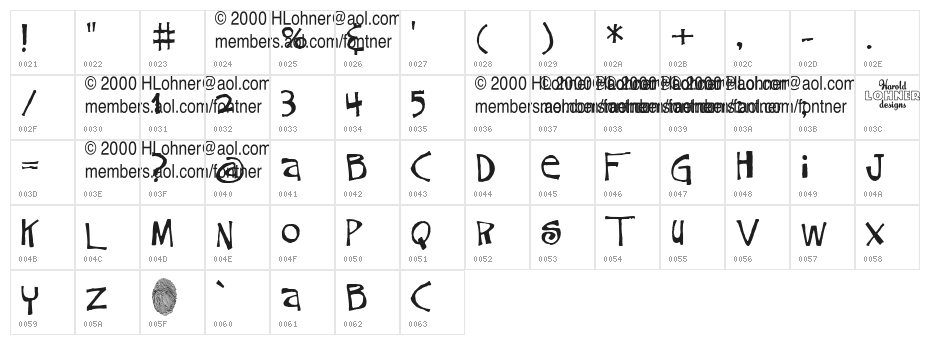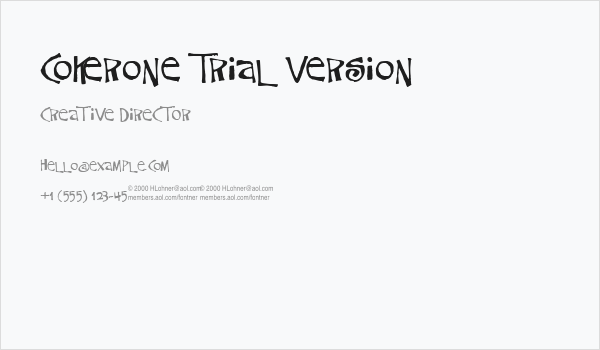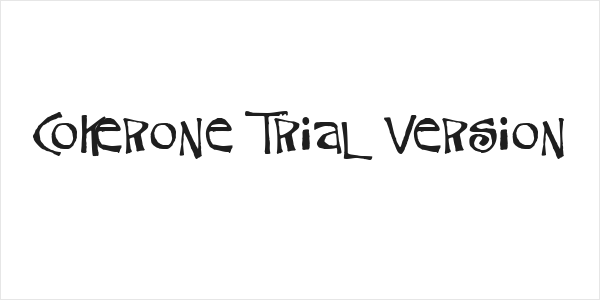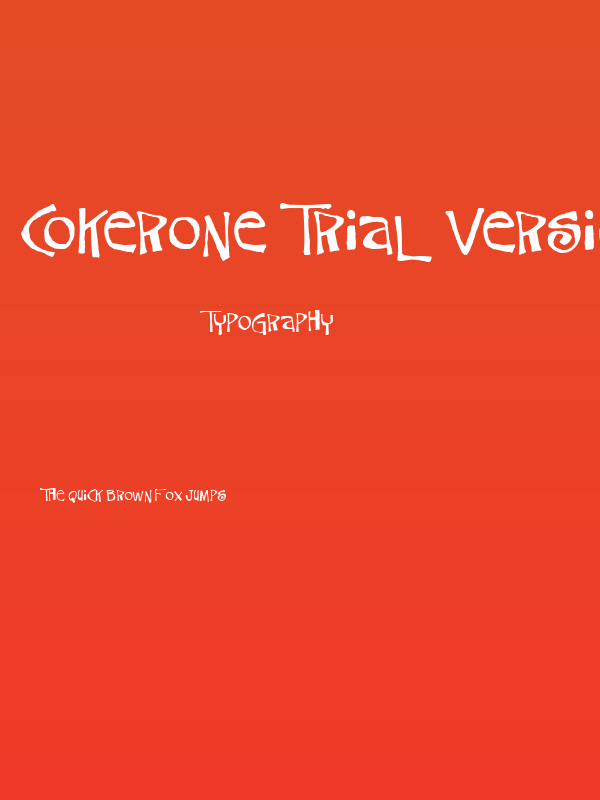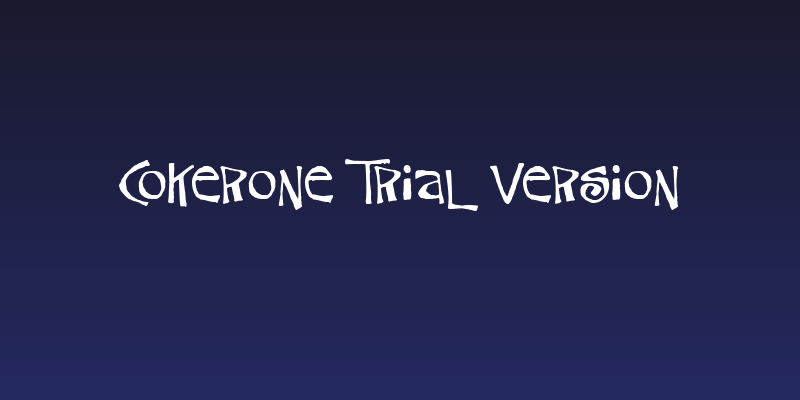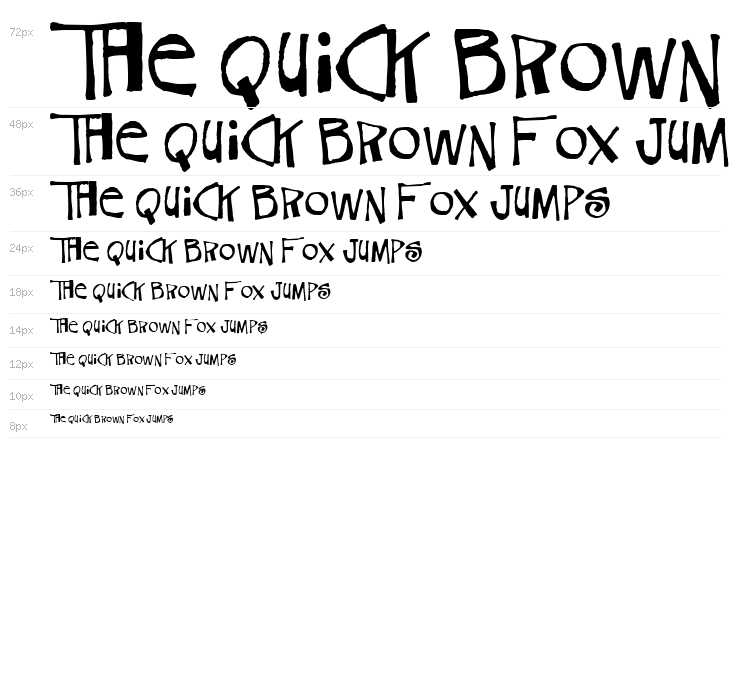
CokerOne Trial Version Font
CokerOne Trial Version Description
This font features a playful and artistic style, characterized by its irregular and whimsical letterforms. Each character exhibits a hand-drawn quality with varying stroke thickness, giving it a dynamic and lively appearance. The uppercase and lowercase letters maintain a consistent theme, with some letters incorporating unique flourishes and curves. The numbers and special characters follow the same playful design, making the font suitable for creative and informal applications. Its distinctive style makes it stand out, adding a touch of personality and creativity to any project.
| Proposed Projects | Ideal for children's books, creative posters, playful branding, and artistic invitations. |